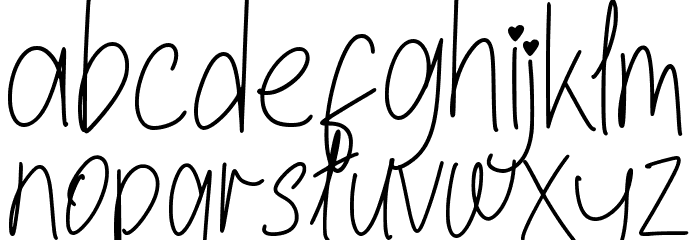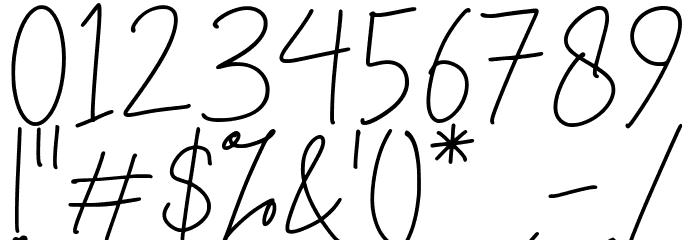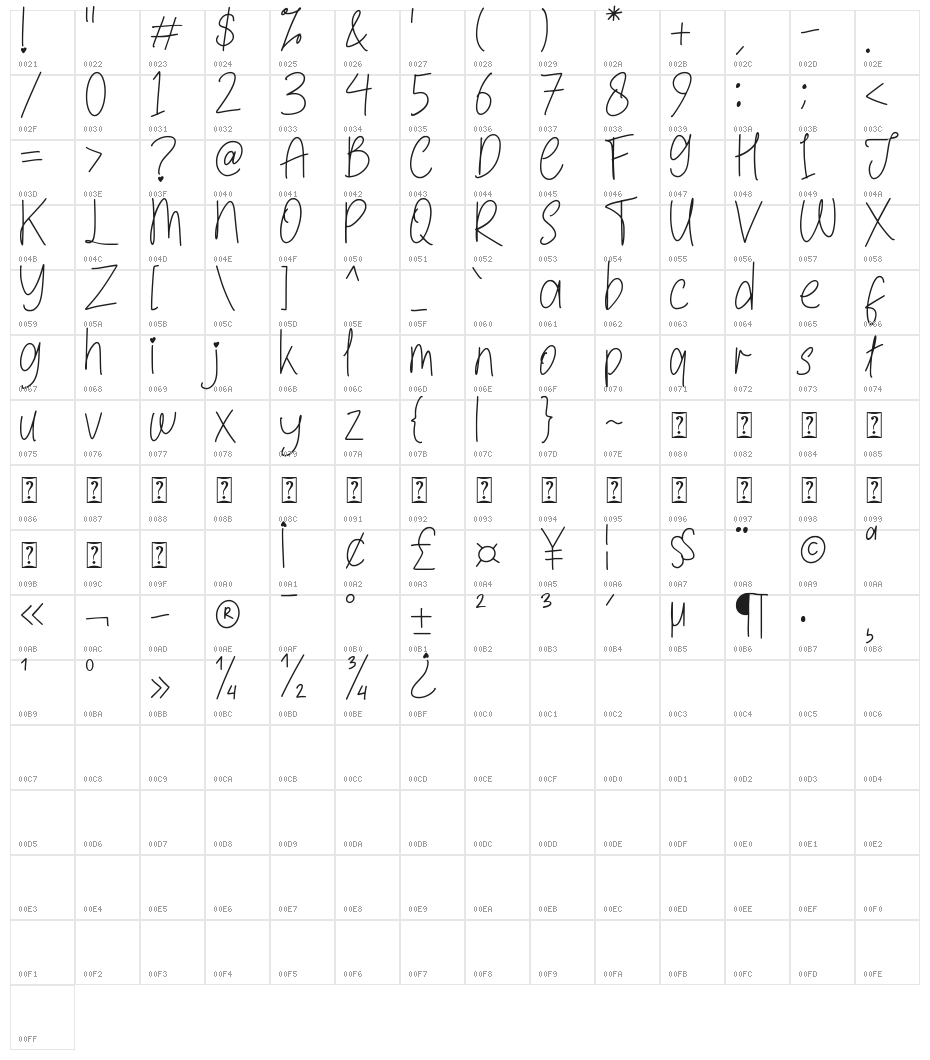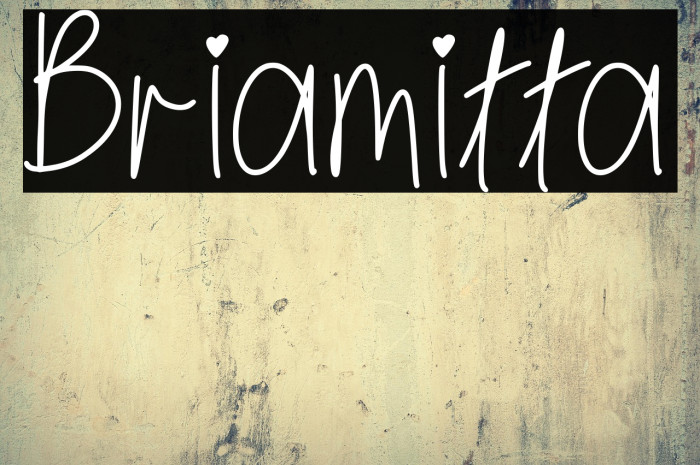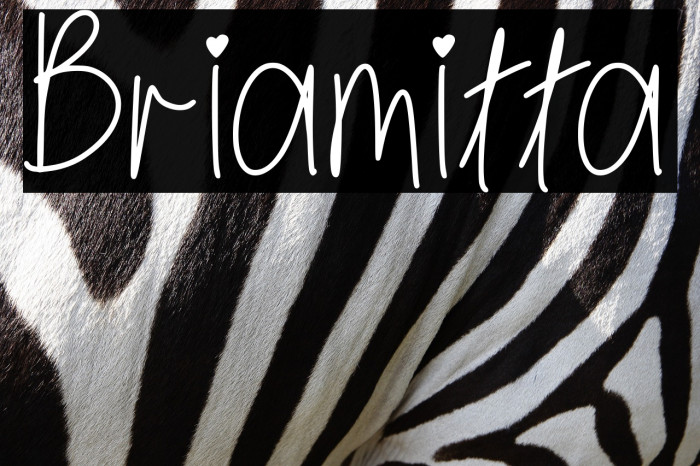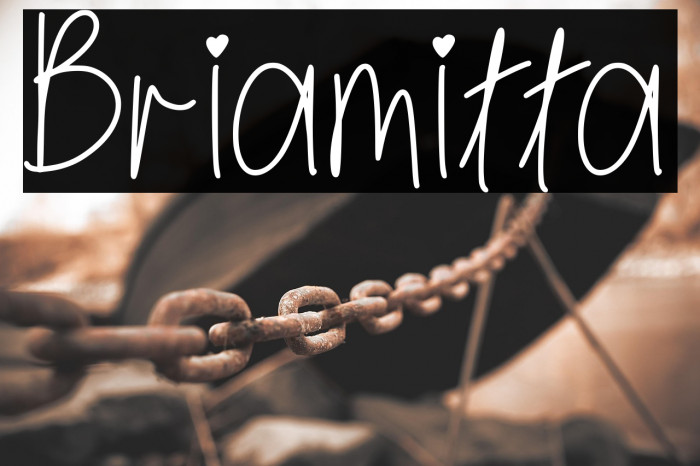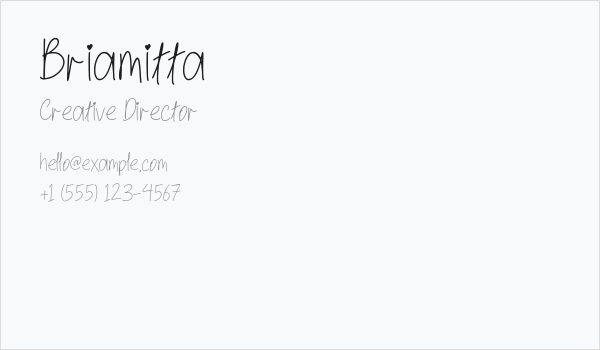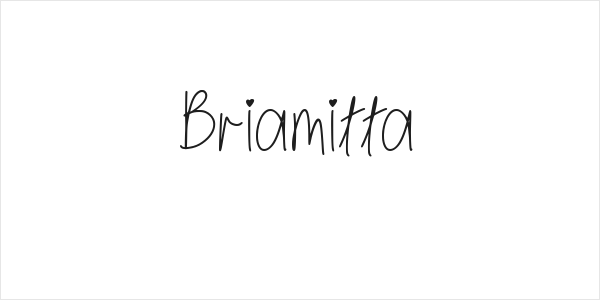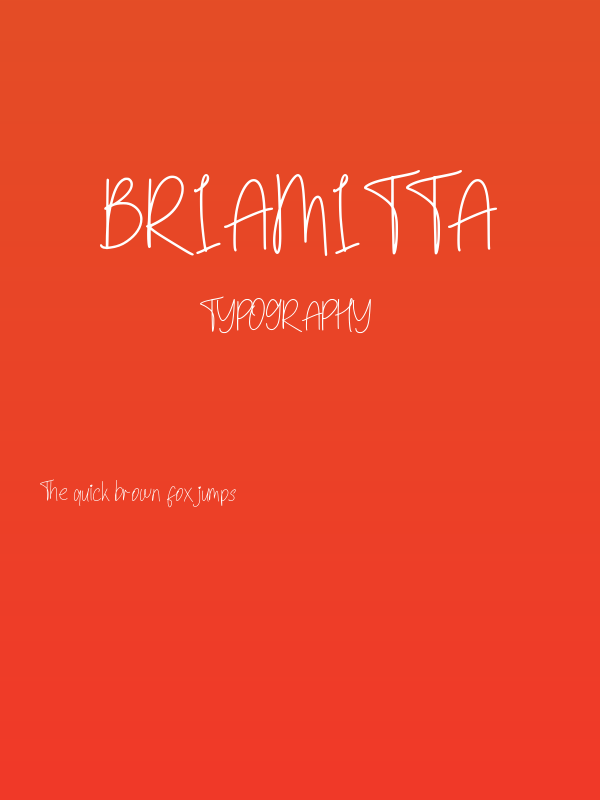
Briamitta Font
This font features a playful and whimsical handwritten style, characterized by its tall, narrow letters and slightly irregular strokes. The uppercase letters are distinct with their elongated forms and subtle curves, while the lowercase letters maintain a consistent flow that mimics natural handwriting. The numerals are clear and legible, matching the overall casual aesthetic. Special characters are creatively integrated, adding a touch of personality, such as the heart-shaped dot on the lowercase 'i'. The font's informal and friendly appearance makes it suitable for projects that require a personal touch.
A playful, handwritten font with tall, narrow letters and a whimsical style.
- Proposed Projects: Ideal for greeting cards, invitations, personal branding, and creative projects that benefit from a casual, friendly tone.
- Overall Style: Casual, Whimsical
- Use Case: Logos, Invitations, Greeting Cards